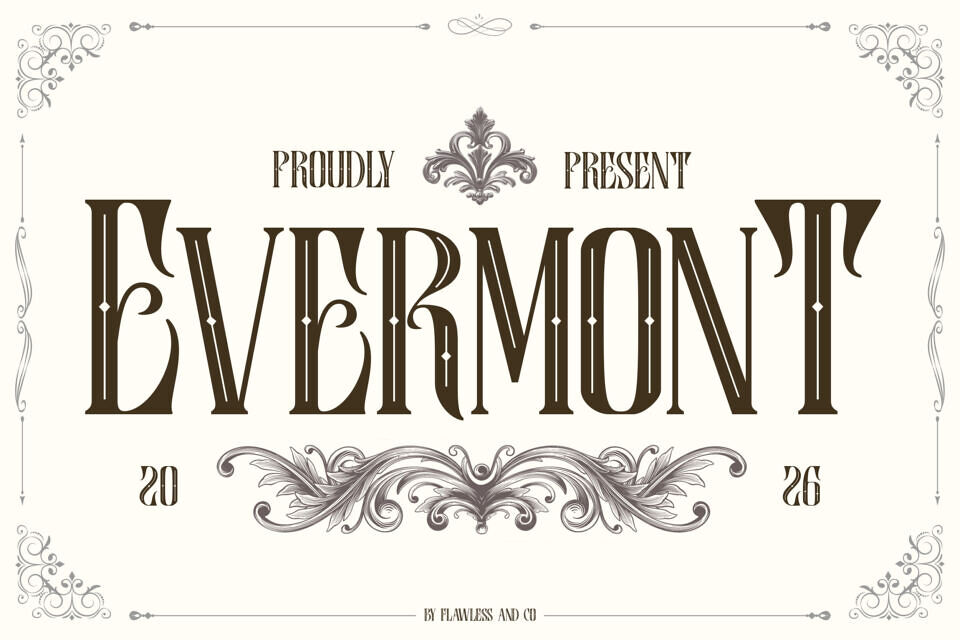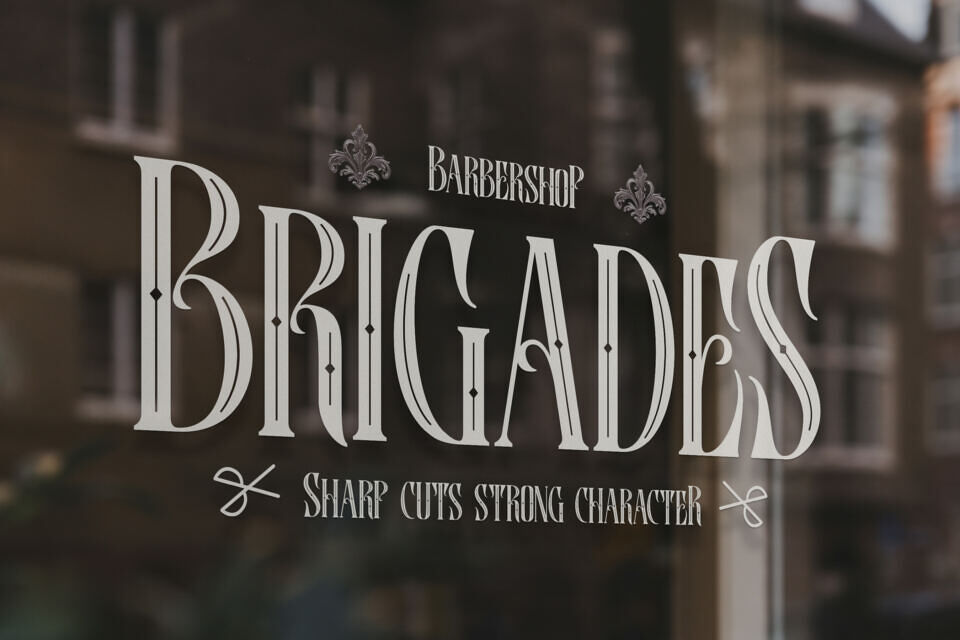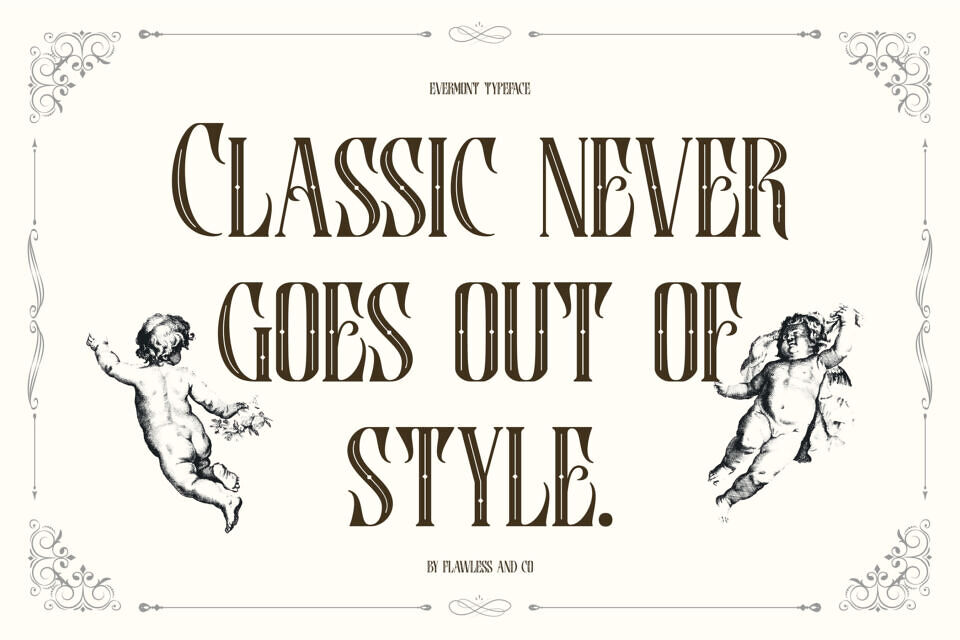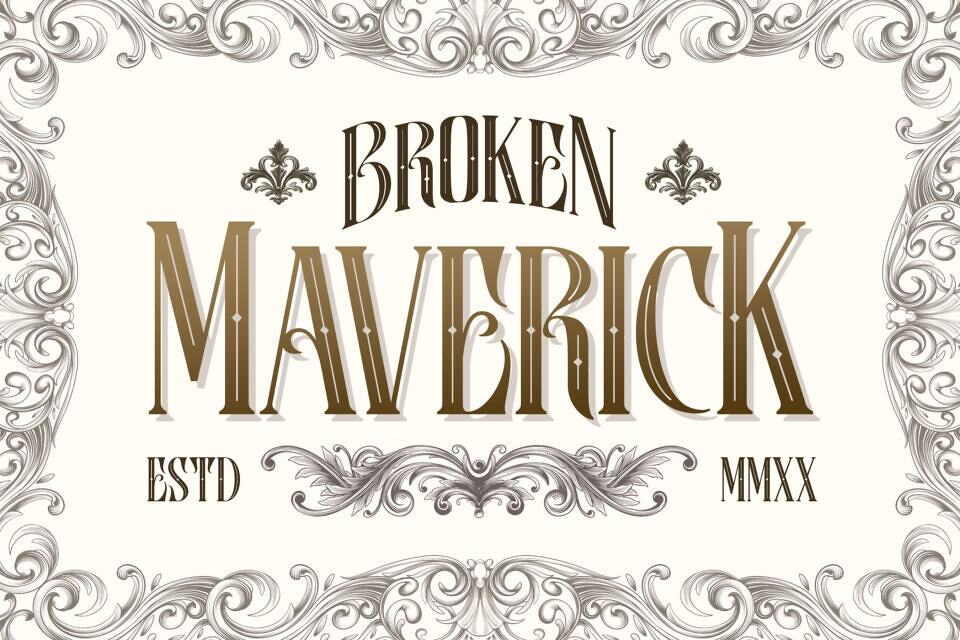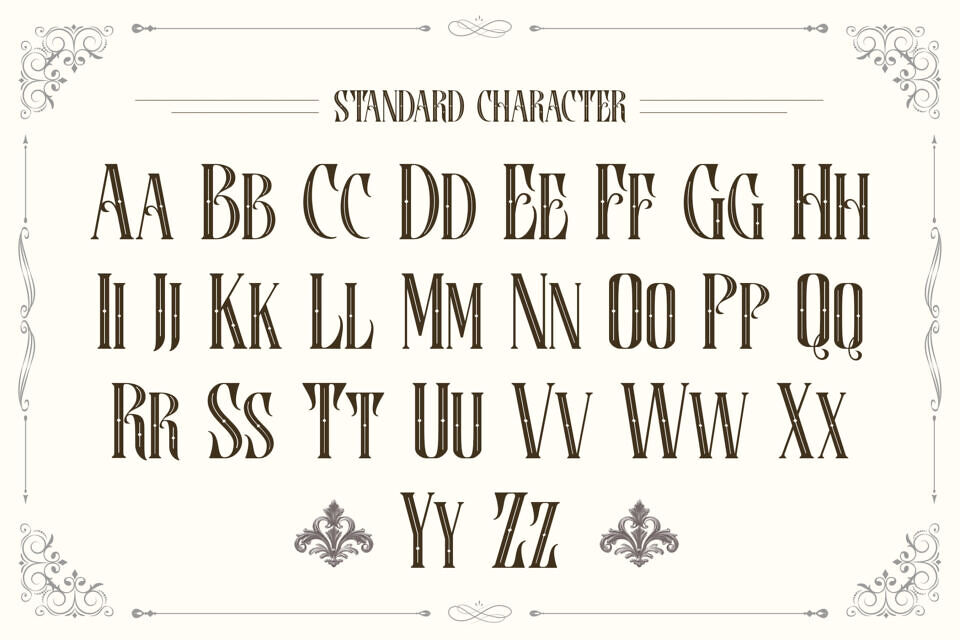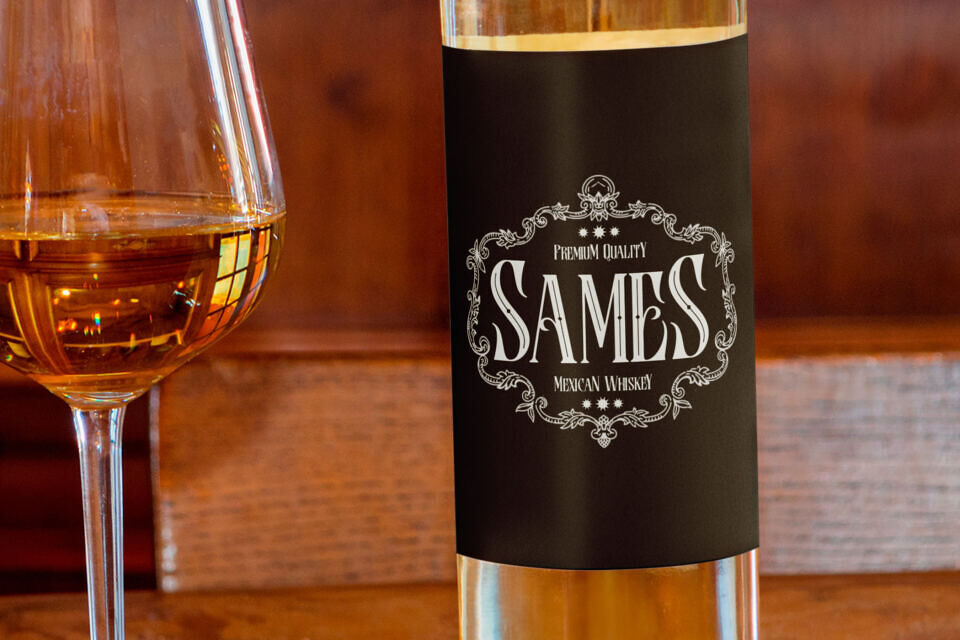
Evermont Font
Evermont is a sophisticated Victorian display font inspired by the elegance, grandeur, and ornamental beauty of the Victorian era.
Featuring decorative letterforms, refined curves, and intricate vintage details, Evermont captures the timeless charm of classic typography while delivering a bold and memorable visual presence. Its distinctive design evokes a sense of heritage, luxury, and craftsmanship, making it perfect for projects that celebrate vintage aesthetics and historical elegance.